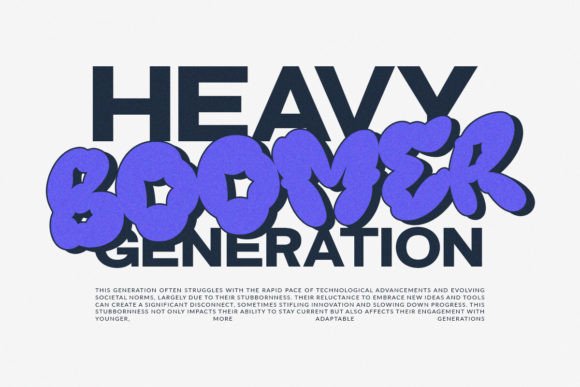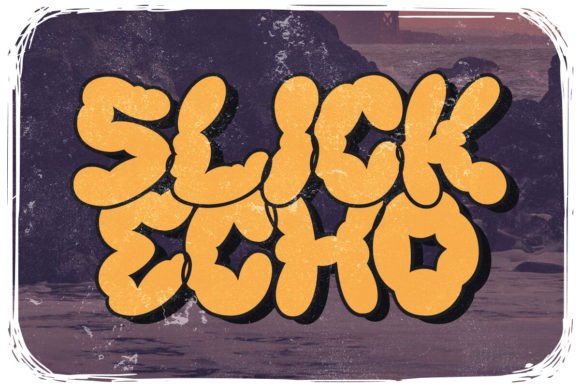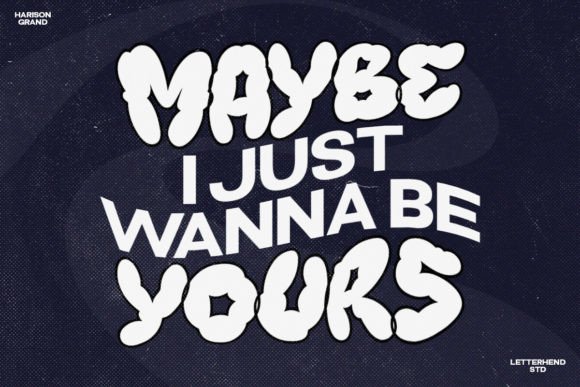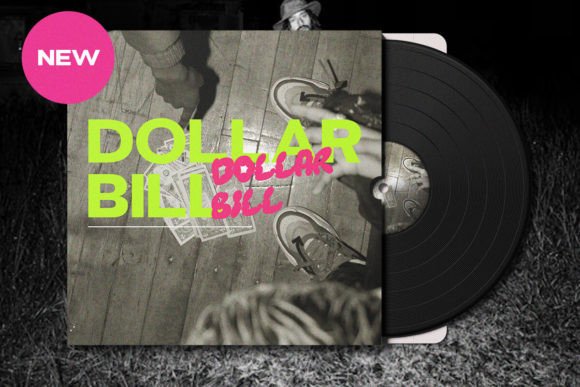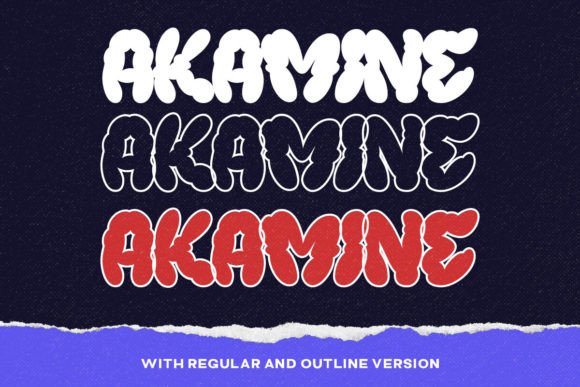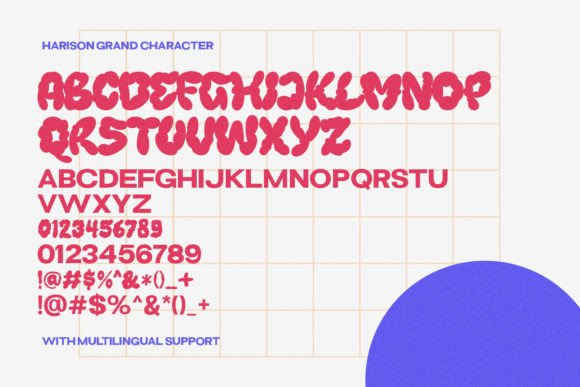
Introducing Harison Grand Font: The Ultimate Retro Display Font
In the world of typography, fonts play a crucial role in making or breaking a design. A perfect font can elevate your creative work, making it stand out from the crowd. If you’re a designer or crafter looking for a unique and eye-catching style, look no further than Harison Grand Font. This retro display font is a game-changer, combining the best of sans serif and whimsical cloud-style typefaces to bring a vibrant retro theme to any project.
The Birth of Harison Grand Font
Harison Grand Font is a carefully crafted typeface that draws inspiration from the nostalgia of retro design. Its creators aimed to develop a font that would not only pay homage to the classics but also bring a modern twist to the table. The result is a font that is both nostalgic and contemporary, perfect for designers and crafters who want to add a touch of personality to their work.
Key Features of Harison Grand Font
So, what makes Harison Grand Font so special? Here are some of its key features:
- Unique Combination: Harison Grand Font boasts a standout combination of sans serif and whimsical cloud-style typefaces, making it a true showstopper.
- Retro Theme: This font brings a vibrant retro theme to any project, perfect for designers and crafters who want to add a touch of nostalgia to their work.
- Perfect for Headlines and Titles: Harison Grand Font is specifically designed for headlines and titles, making it ideal for projects that require a bold and eye-catching style.
- Modern Twist: Despite its retro inspiration, Harison Grand Font has a modern twist that sets it apart from other fonts in its class.
Why Choose Harison Grand Font?
With so many fonts available, why should you choose Harison Grand Font? Here are just a few reasons:
- Attention-Grabbing: Harison Grand Font is designed to capture attention, making it perfect for projects that require a bold and eye-catching style.
- Versatile: This font can be used in a wide range of projects, from branding and advertising to packaging and digital design.
- Easy to Read: Despite its unique style, Harison Grand Font is easy to read, making it perfect for headlines and titles.
- Customizable: Harison Grand Font can be customized to fit your specific needs, allowing you to add your own personal touch to your designs.
How to Use Harison Grand Font
So, how can you use Harison Grand Font in your designs? Here are a few ideas:
- Headlines and Titles: Use Harison Grand Font for headlines and titles to add a bold and eye-catching style to your designs.
- Branding and Advertising: This font is perfect for branding and advertising projects that require a unique and attention-grabbing style.
- Packaging Design: Harison Grand Font can add a touch of personality to your packaging design, making your products stand out on store shelves.
- Digital Design: This font is also perfect for digital design projects, such as website headers and social media graphics.
In conclusion, Harison Grand Font is a game-changing retro display font that is perfect for designers and crafters looking for a unique and eye-catching style. Its combination of sans serif and whimsical cloud-style typefaces makes it a standout font that is sure to capture attention. With its versatility, customizability, and ease of use, Harison Grand Font is a must-have for any designer or crafter looking to elevate their creative work.